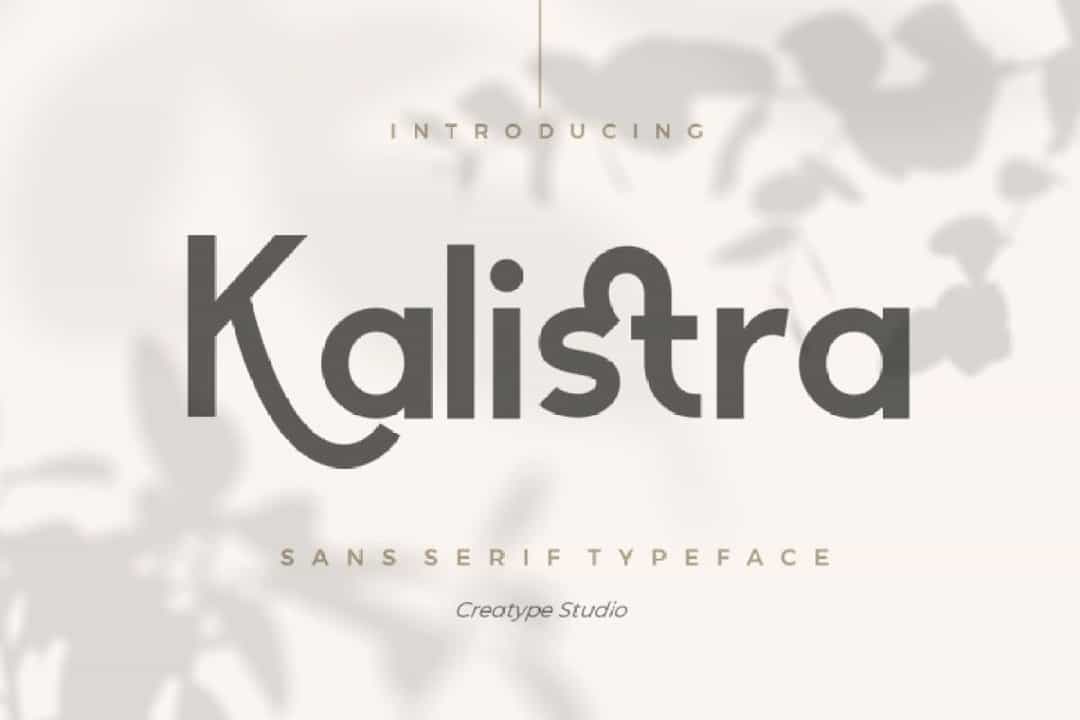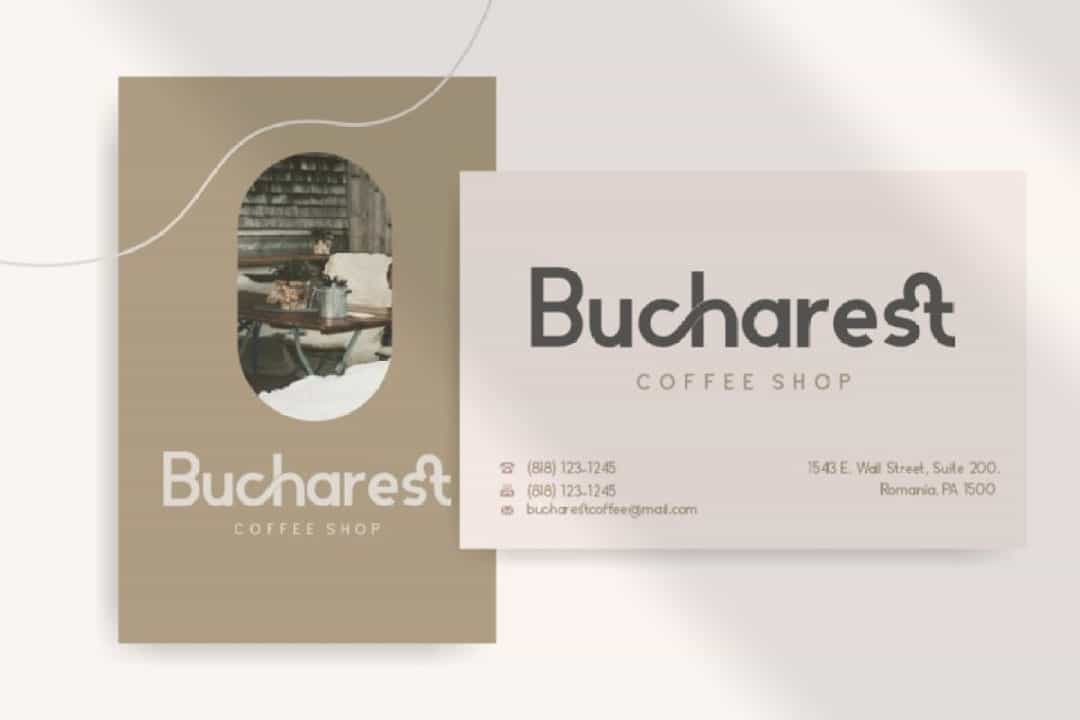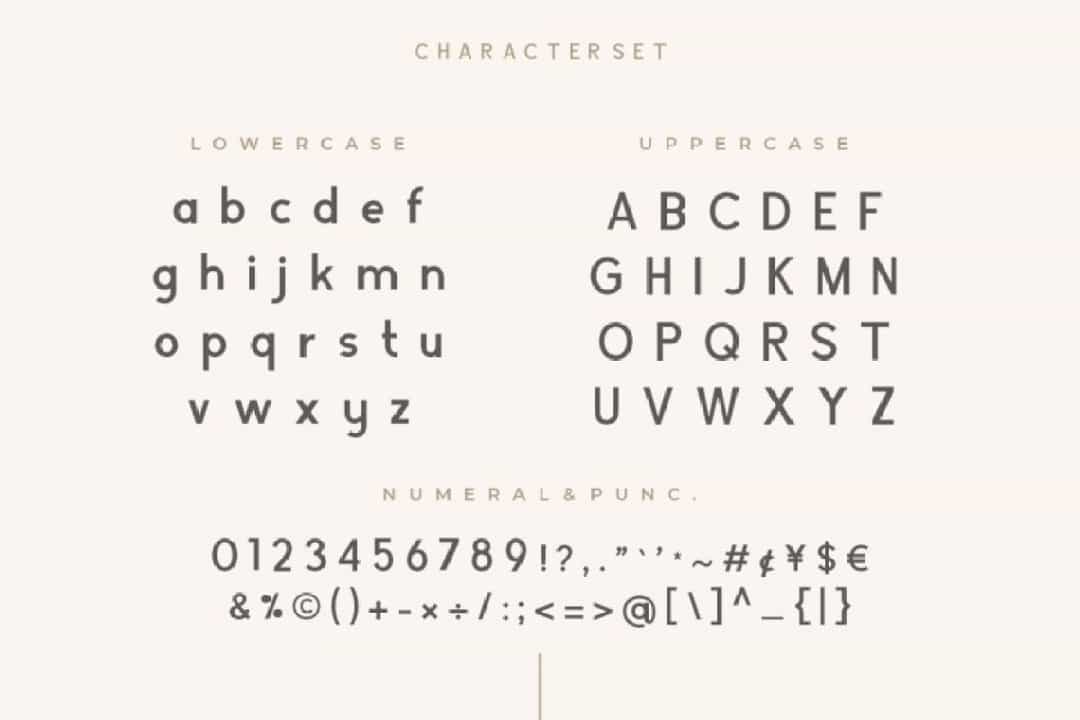
Kalistra is a beautiful sans serif font that will help to convey professionalism and refinement to any project. The fact that Kalistra is flexible makes it suitable for watermarks, photographs and social media posts advertisements, logos, branding invitations, product designs, labels, stationery, wedding designs, packaging of products, special occasions, or anything.